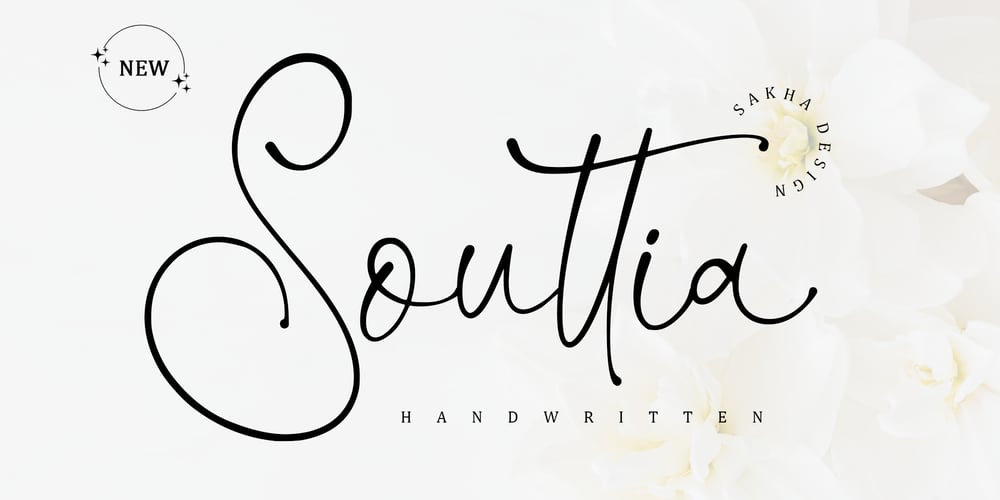
Souttia
Souttia font
Souttia Font Family was designed by Alif Ryan Zulfikar and published by Sakha Design. Souttia contains 2 styles and family package options. Souttia is a slim and exquisite handwritten font. Stylish, graceful, and flowing, this font will definitely elevate the look of any of your beautiful creations while keeping them grounded and natural.